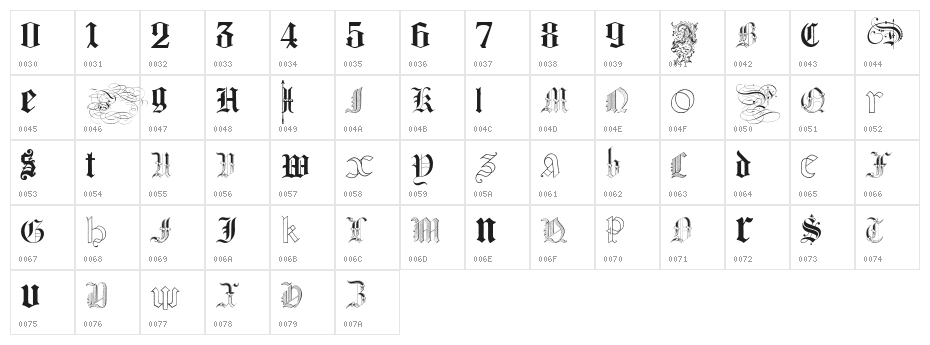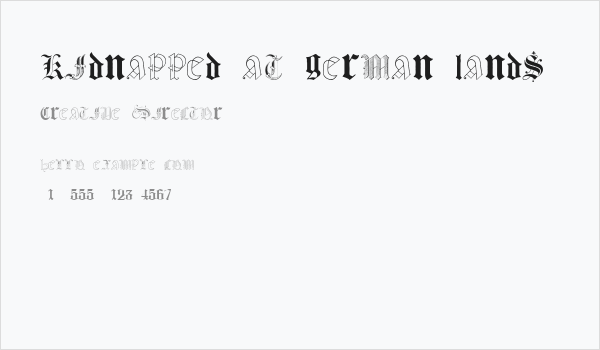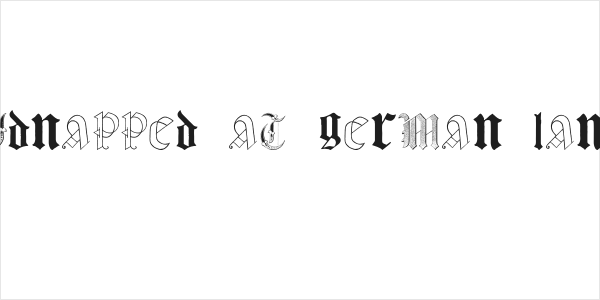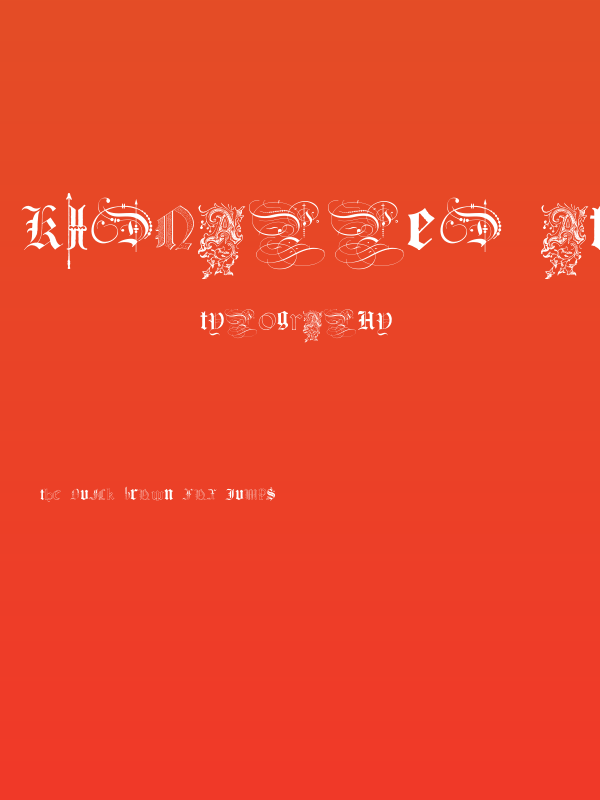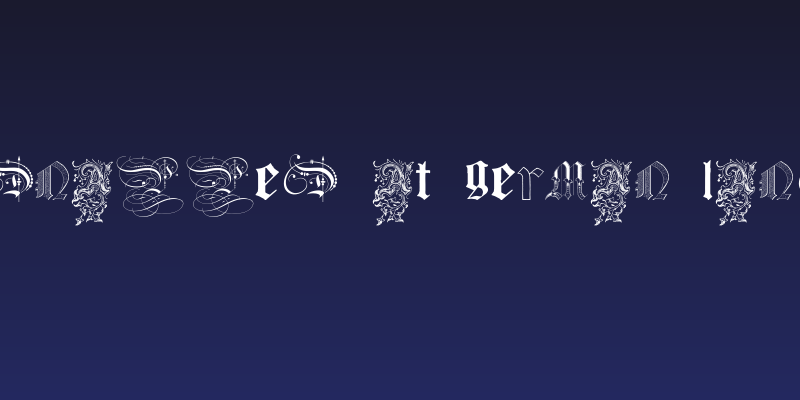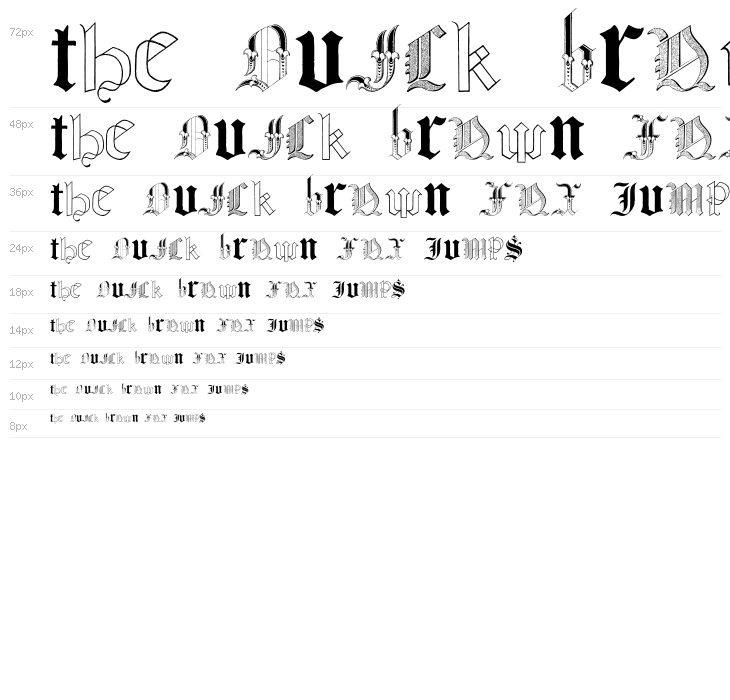
Kidnapped at German Lands Font
Kidnapped at German Lands Description
This font is a striking example of Blackletter style, characterized by its intricate and ornate letterforms. Each character is crafted with elaborate flourishes and sharp, angular lines, reminiscent of medieval manuscripts. The uppercase letters exhibit a high level of detail, with some incorporating additional decorative elements that enhance their visual appeal. The lowercase letters maintain the same level of complexity, ensuring consistency throughout the typeface. The numerals are bold and commanding, with a strong presence that complements the overall aesthetic. Special characters are equally ornate, fitting seamlessly into the design. This font exudes a sense of historical elegance and sophistication, making it ideal for projects that require a touch of vintage charm.
| Use Case | Logos, Headlines, Decorative purposes |
| Proposed Projects | Ideal for historical documents, wedding invitations, book covers, and branding that requires a vintage or gothic touch. |